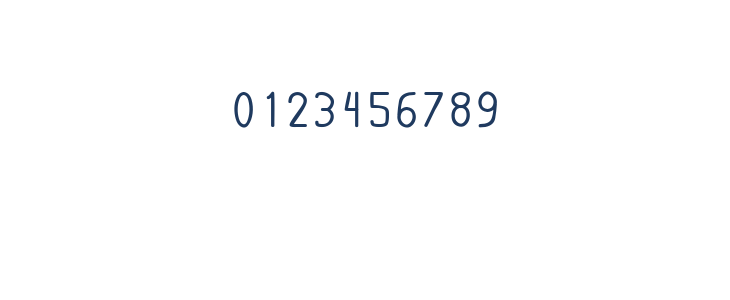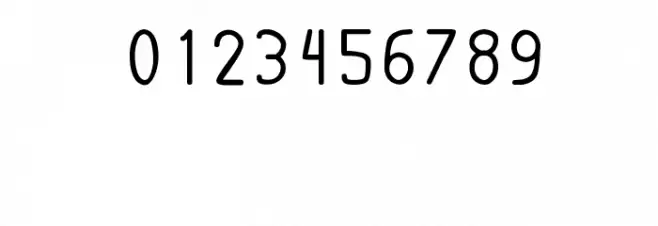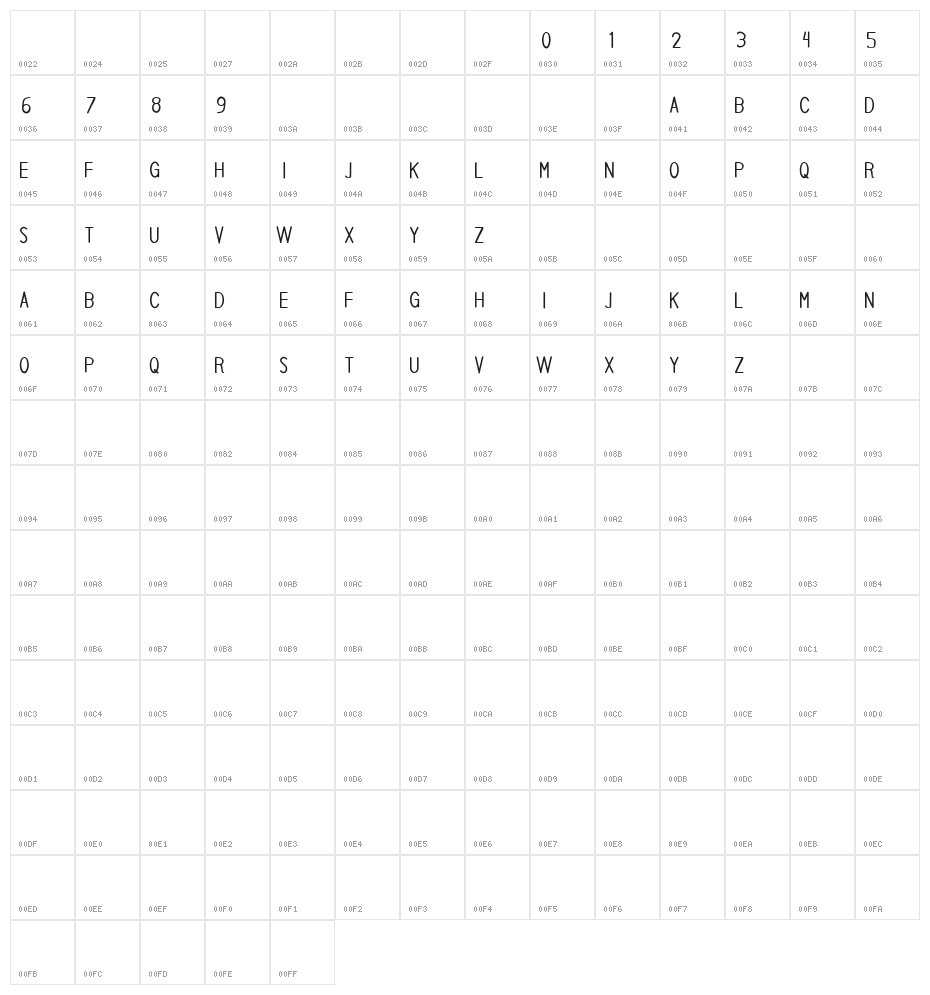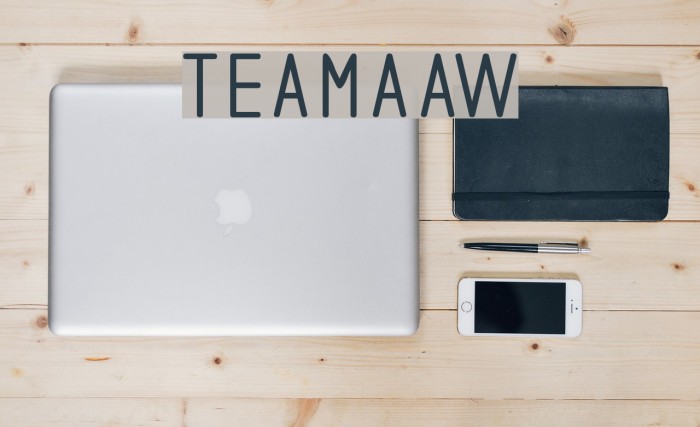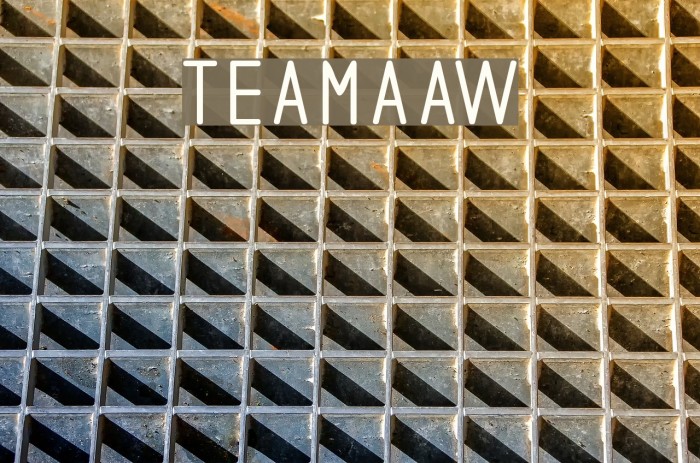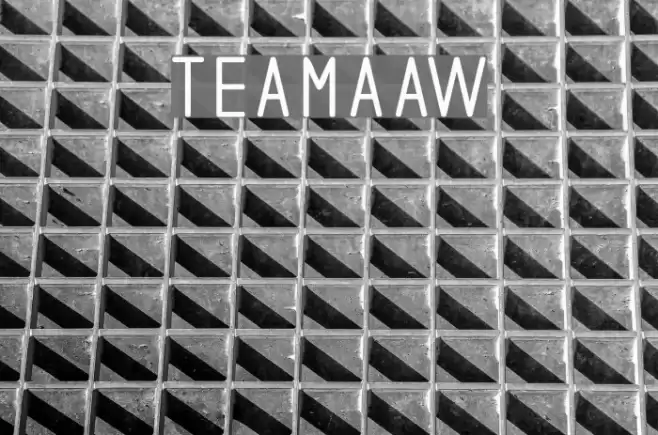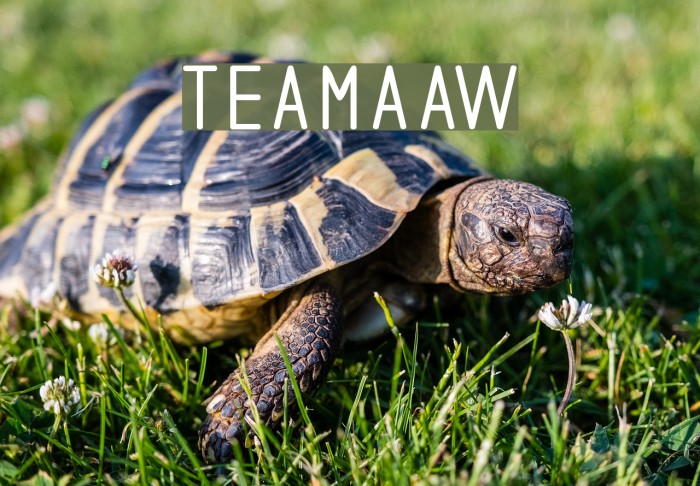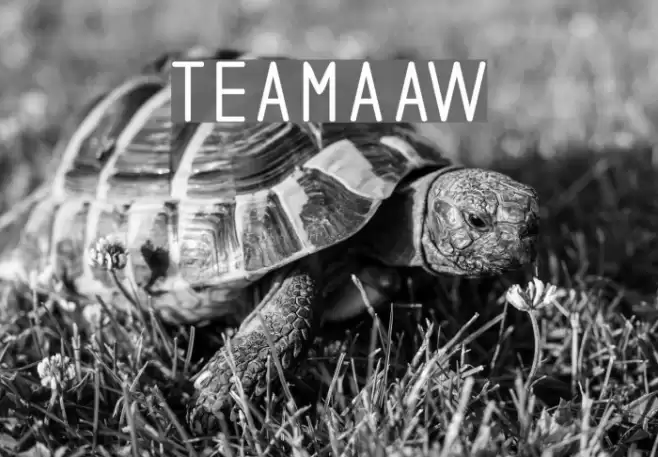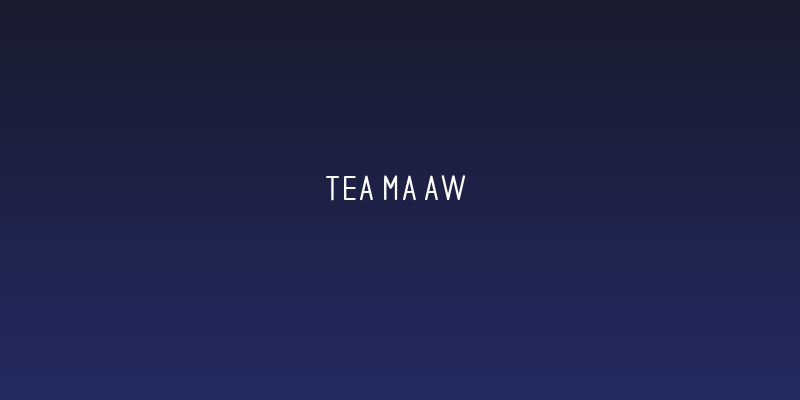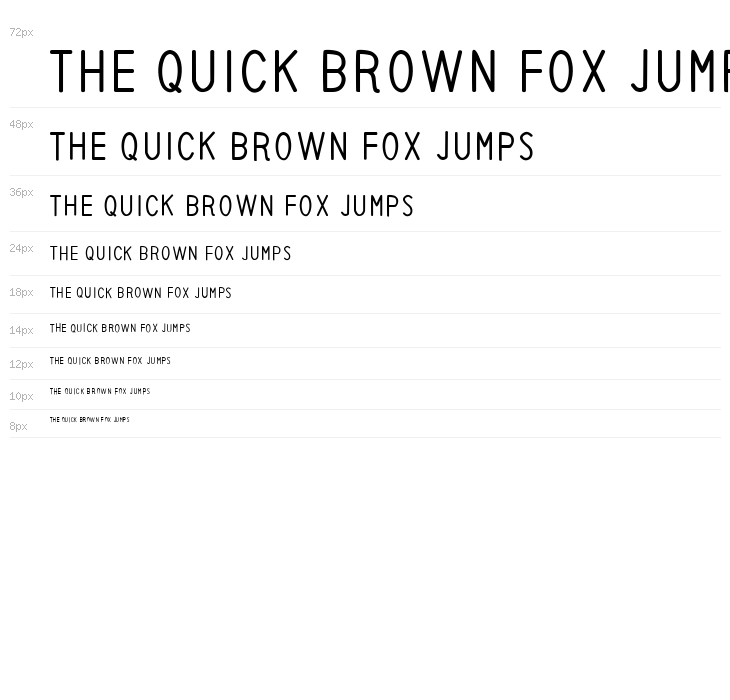
teamaaw Font
teamaaw Description
This font features a clean and modern sans-serif style with rounded edges, giving it a friendly and approachable appearance. The characters are evenly spaced, providing a balanced and harmonious look. The uppercase and lowercase letters maintain a consistent height, contributing to its uniformity. The numerals are clear and easy to read, making them suitable for various applications. The overall design is minimalistic, with a focus on simplicity and readability, making it versatile for both digital and print media.